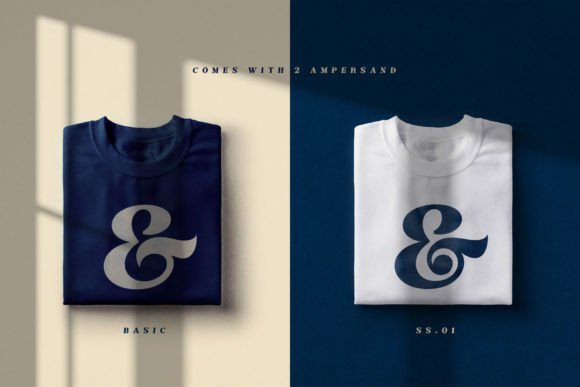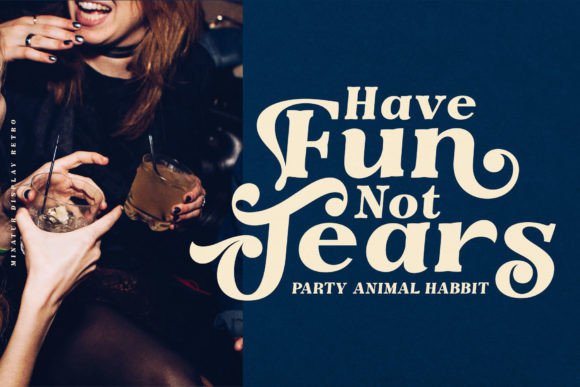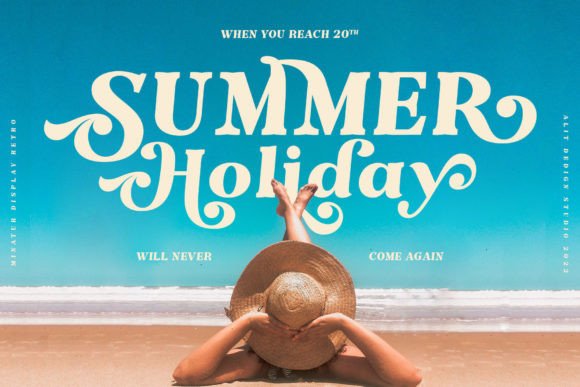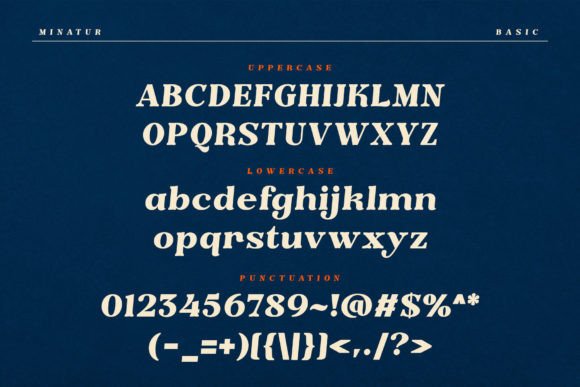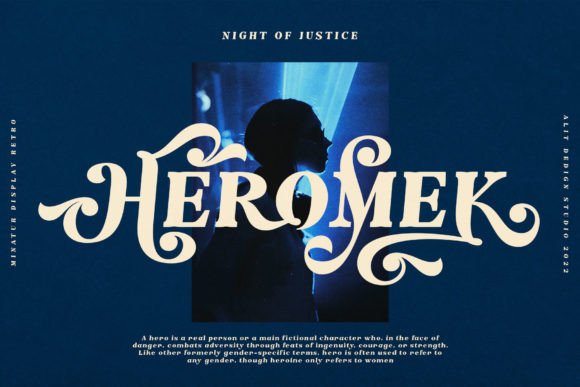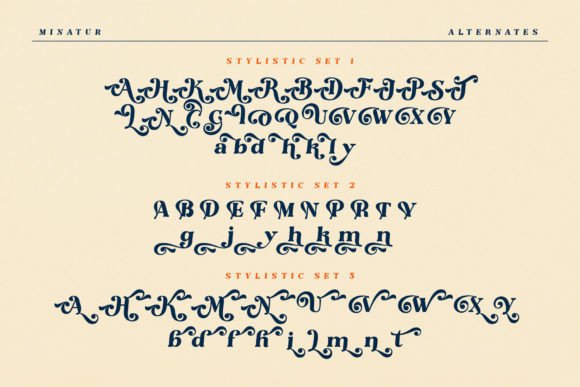
Introduction to Minatur Font
As designers, we’ve all been there – staring at a blank canvas, trying to bring our creative vision to life. The perfect font can make all the difference, elevating our projects from good to great. That’s where the Minatur Font comes in – a stylish and cool display font that’s sure to become a true favorite among designers.
With its classy calligraphic influences and fresh, contemporary feel, Minatur Font is the perfect design resource for any creative project. Whether you’re working on a logo, a brochure, or a website, this high-quality font is sure to bring a touch of sophistication and elegance to your design. And the best part? It’s PUA encoded, making it easy to access all the glyphs and ligatures you need to take your project to the next level.
Honest Review: Minatur Font
I recently had the chance to work with the Minatur Font and I must say it’s a great addition to any design project. This high-quality font is perfect for creative projects that require a unique and elegant touch.
One of the things I love about the Minatur Font is its versatility. It’s great for both print and digital designs, and it’s especially useful when you need a font that can be used on a transparent background. ✨
Here are some of the features that I like about the Minatur Font:
- High-quality design that’s perfect for creative projects.
- Works well on both print and digital designs.
However, there are a few limitations to the Minatur Font that I’d like to mention:
⚠️ The font only comes in a few weights, which may limit its use in certain designs.
Overall, I’m really impressed with the Minatur Font. It’s a great design resource that’s perfect for creative projects. I would definitely recommend it to anyone looking for a high-quality font that’s easy to use.
Tips for Getting the Most Out of Minatur Font
For optimal results, use Minatur Font in a high-quality design project, taking advantage of its transparent background feature to create stunning visuals.
Minatur Font is ideal for creative projects that require a unique and eye-catching font, such as:
- Print and digital marketing materials
- Infographics and visual aids